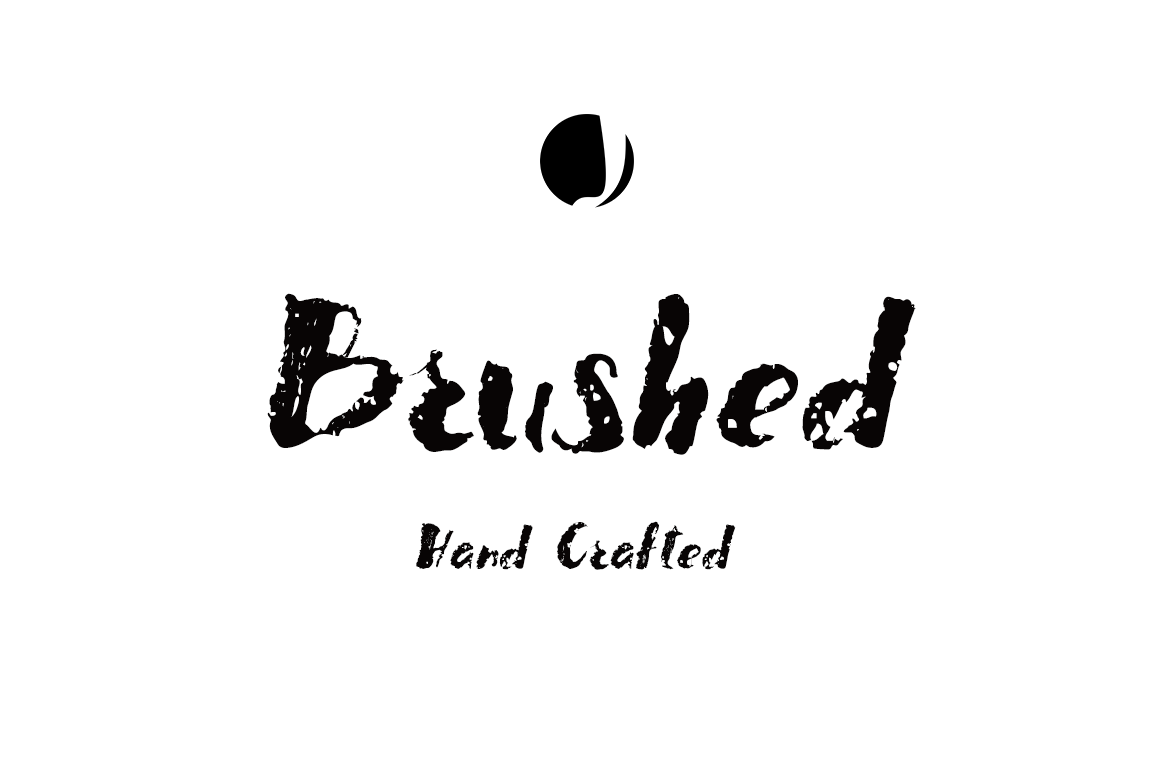
Brushed Font Rough Textured
Here is some rough brush font "Brushed" that gives feeling of text written long time ago.why not use on your new project to give some old retro feelings? We applied kerring in Fontlab which you can enable in microsoft word by reading this article. http://www.dummies.com/software/microsoft-office/word/how-to-enable-kerning-in-word-2013-documents/